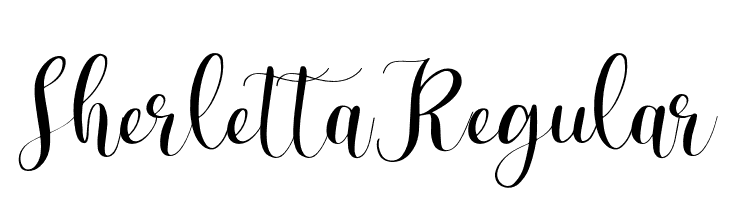
A graceful and elegant script font with flowing, cursive letterforms.
A graceful script font with elegant, flowing cursive letterforms.
A modern, elegant handwritten script with fluid, cursive letterforms.
A cursive, handwritten-style font with elegant loops and swashes.